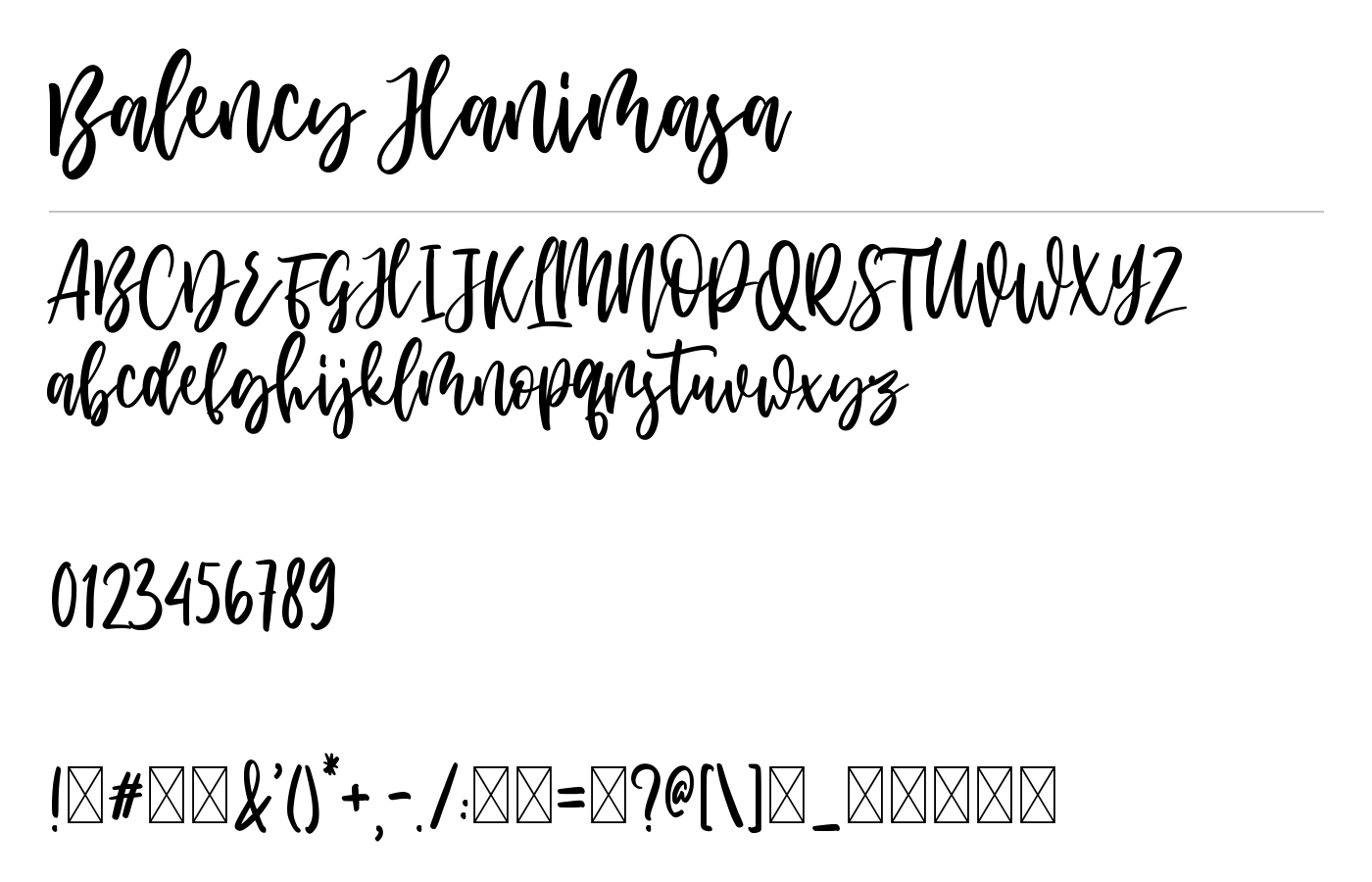
Balency Hanimasa is a lively and expressive handwritten script font with a casual, friendly feel. Its smooth, flowing strokes and medium weight create an inviting and personal touch, making it ideal for creative projects, branding, invitations, and social media headlines. This font’s playful elegance works well where a warm, approachable style is desired without sacrificing readability.
Balency Hanimasa Font
About Balency Hanimasa Font
| Designer | M Arif Dwi Prasetyo & Eko Nurcahyo |